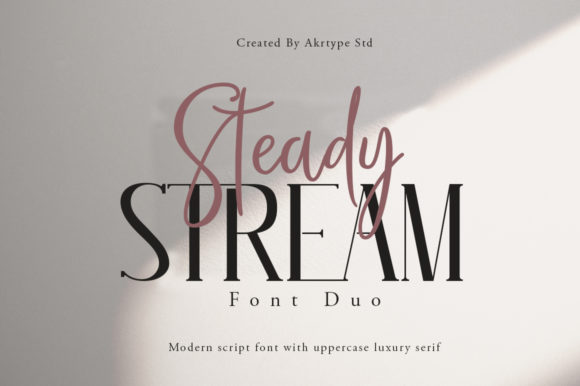
Introducing Steady Stream Font - A Symphony of Beauty for Your Creative Endeavors
Journey into the world of Steady Stream Font, a modern duo font that harmonizes elegance and sophistication like no other. Embark on a typographic adventure where classic script dances gracefully alongside a regal serif uppercase, creating a visual masterpiece that elevates your designs to new heights.
Immerse yourself in the allure of this font duo, meticulously crafted to inspire and captivate. The script font, with its flowing curves and delicate strokes, evokes a sense of timeless charm, while the serif uppercase exudes an air of luxury and refinement. Together, they weave a symphony of visual delight, transforming your creative projects into works of art.
Whether you're a seasoned designer or just starting your creative journey, Steady Stream Font is your perfect companion. Its versatility knows no bounds, seamlessly adapting to a myriad of design endeavors:
- Branding: Create a lasting impression with logos and branding elements that radiate sophistication and elegance.
- Headings: Make your headings stand out with captivating typography that commands attention and leaves a lasting impact.
- Wedding Designs: Add a touch of romance and charm to your wedding invitations and stationery, setting the perfect tone for your special day.
- Invitations: Craft captivating invitations for any occasion, leaving a lasting impression on your guests.
- Signatures: Elevate your digital signature with a personalized touch, making every email and document a reflection of your unique style.
- Logos: Design logos that exude professionalism and creativity, leaving a lasting impression on your clients and customers.
- Labels: Create product labels that captivate and inform, transforming ordinary items into objects of desire.
- And so much more...
With Steady Stream Font, the possibilities are endless. Unlock your creativity and let your imagination soar as you explore the boundless potential of this typographic treasure. Transform your designs into breathtaking expressions of art, leaving a lasting impression on your audience.